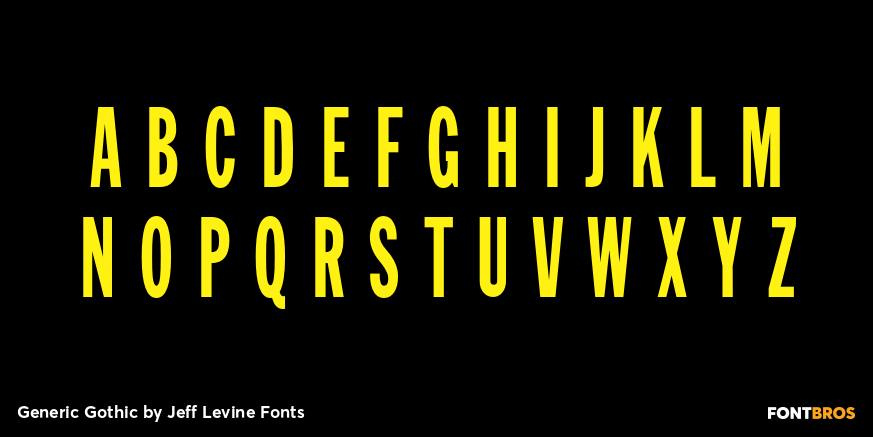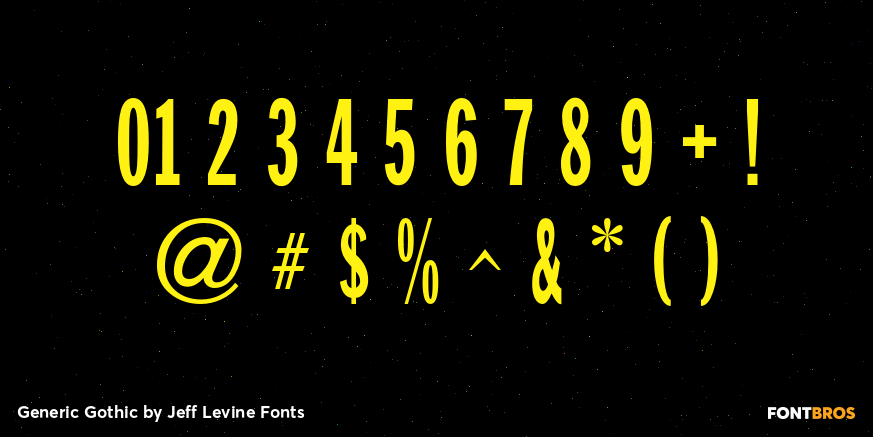
Generic Gothic
Generic Gothic JNL is a straightforward interpretation of the classic typeface Franklin Gothic Condensed, modeled from a sheet of self-adhesive vinyl letters and numbers.